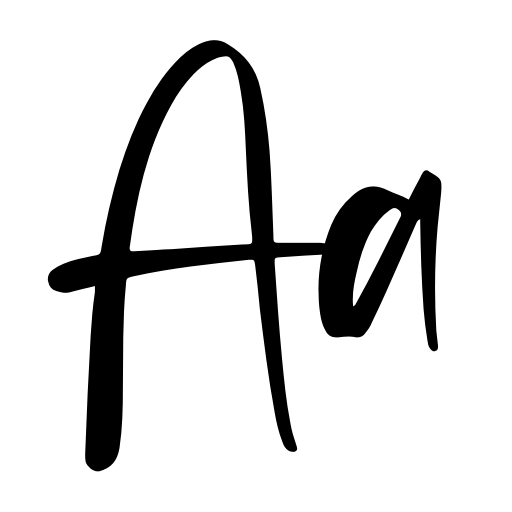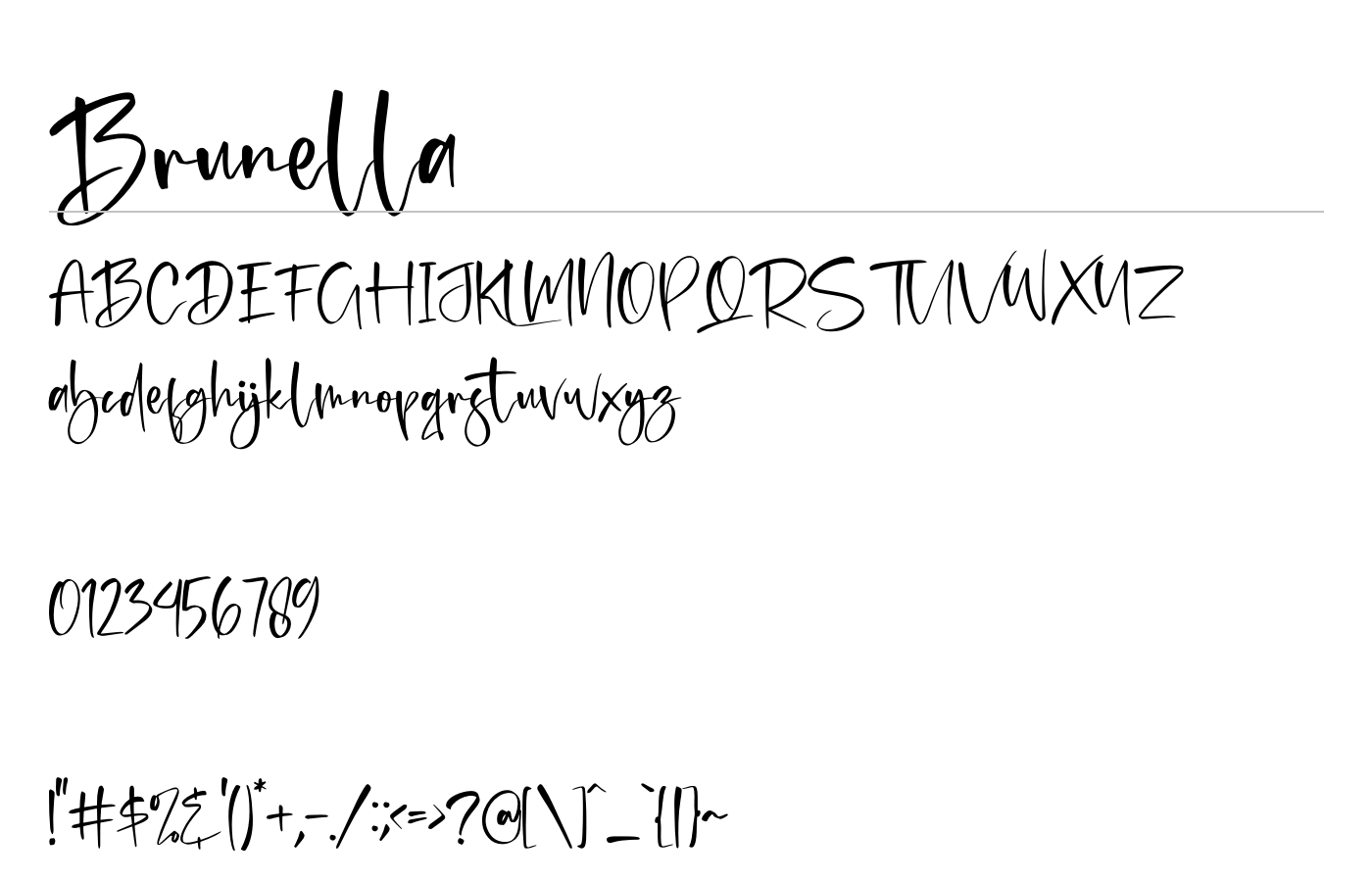
Brunella is a playful and lively handwritten script font featuring a light weight and tall x-height, with smooth, flowing strokes that create a casual yet elegant feel. Its tall, narrow letterforms and distinctive loops make it perfect for creative projects, logos, invitations, and branding that seek a personal, friendly, and stylish touch. This font works best where a handcrafted, approachable look is desired, adding charm and character without overwhelming the design.
Brunella Font
About Brunella Font
| Font family | Brunella Font |
| Designer | Ribeth Studio |